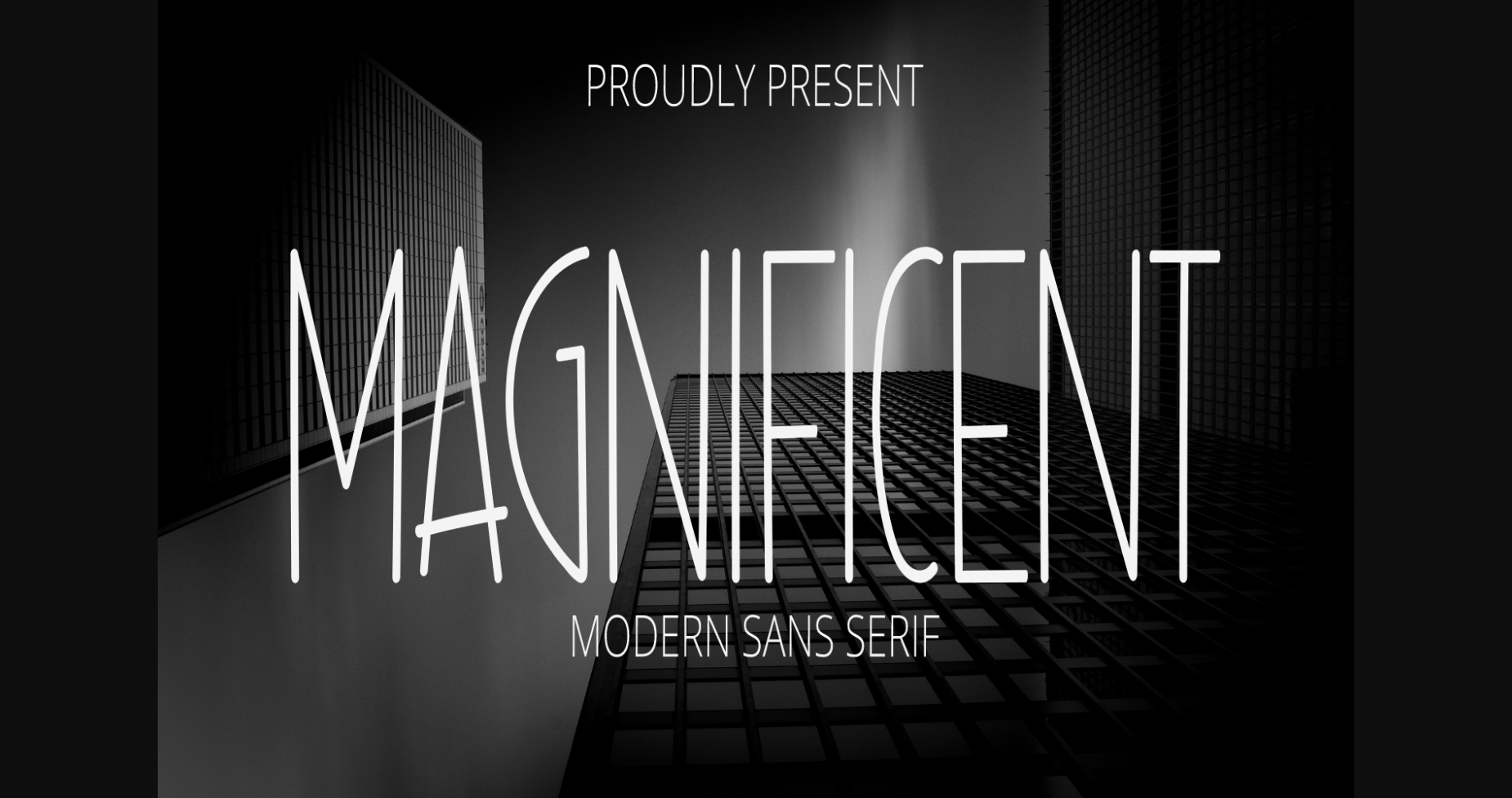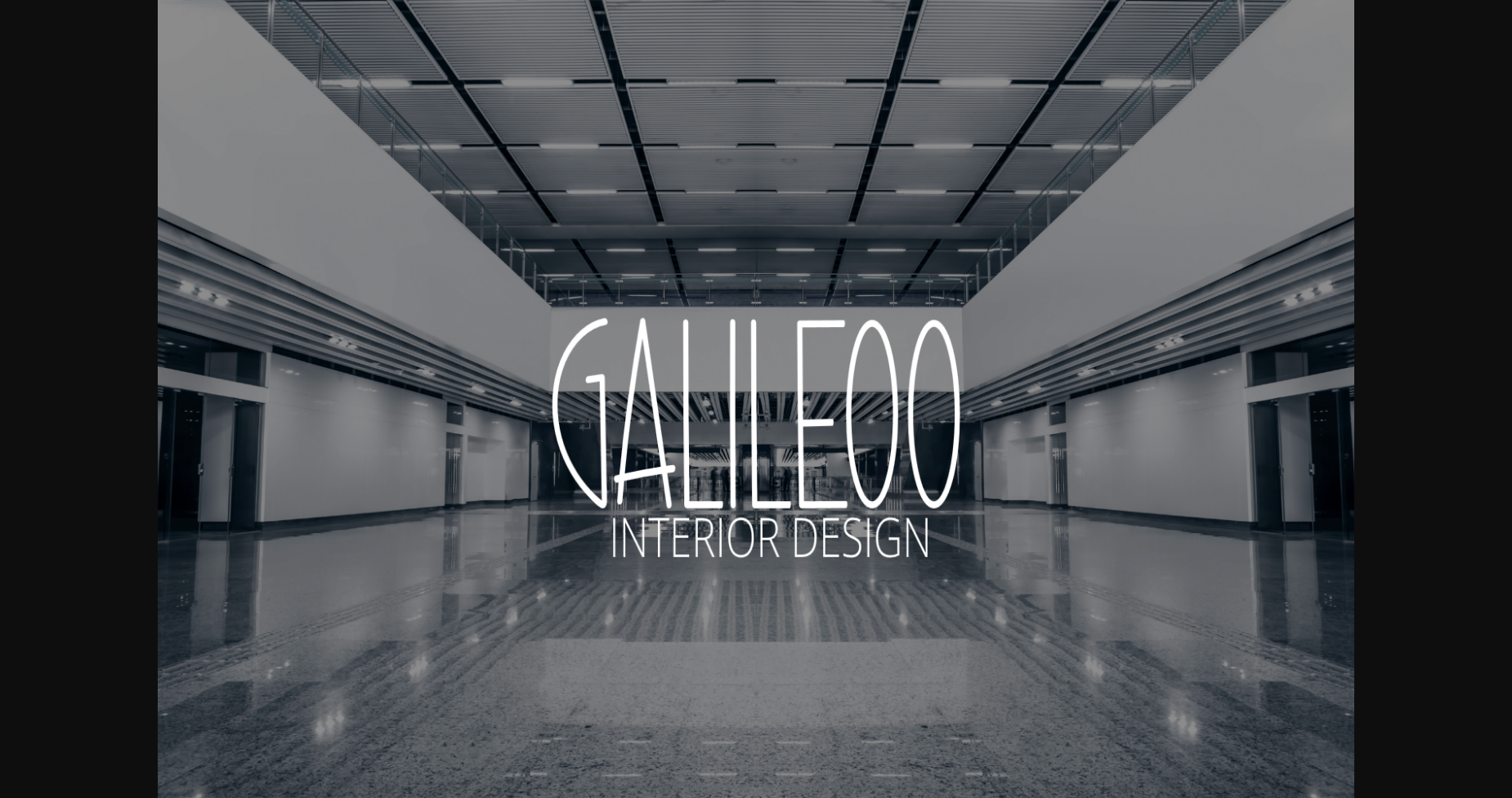
About Magnificent Font
Magnificent is a tall, modern and simple sans serif font. It can easily be matched to an incredibly large set of projects, so add it to your creative ideas and notice how it makes them stand out!